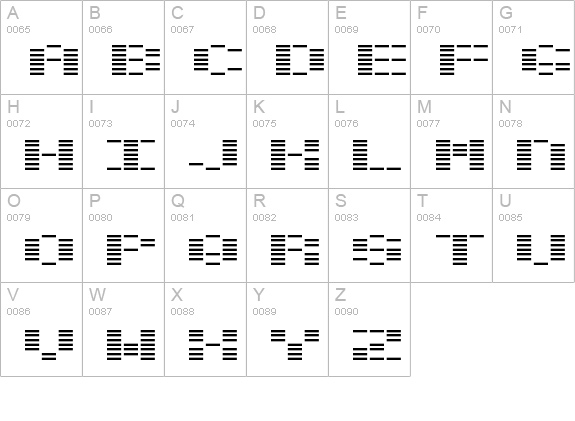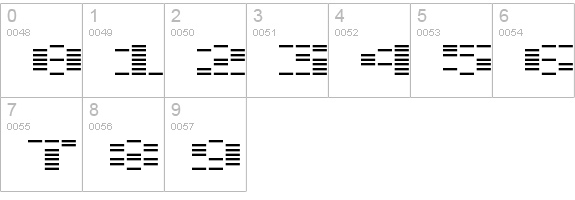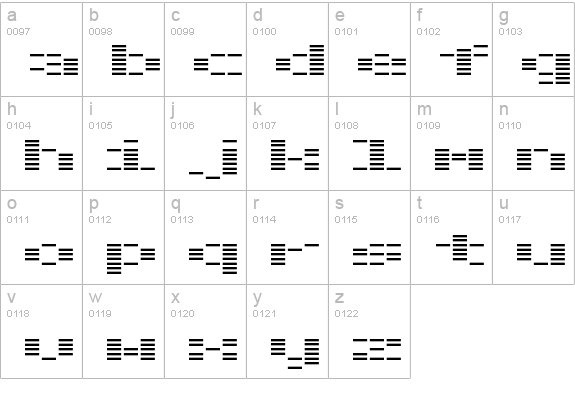
OTO chouha Font Details
The OTO Chouha font is a striking display typeface that exudes elegance and sophistication. With its clean lines and modern aesthetic, this font is perfect for adding a touch of style to any design project. From logos to headlines, the OTO Chouha font is versatile and eye-catching. What makes this font even more appealing is that it is completely free to download. Yes, you read that right - you can get your hands on the OTO Chouha font at no cost! Simply head over to FontsMarket.com and start using this stunning typeface in your creations today. Don't miss out on the opportunity to enhance your designs with the OTO Chouha font - download it now and elevate your projects to the next level.